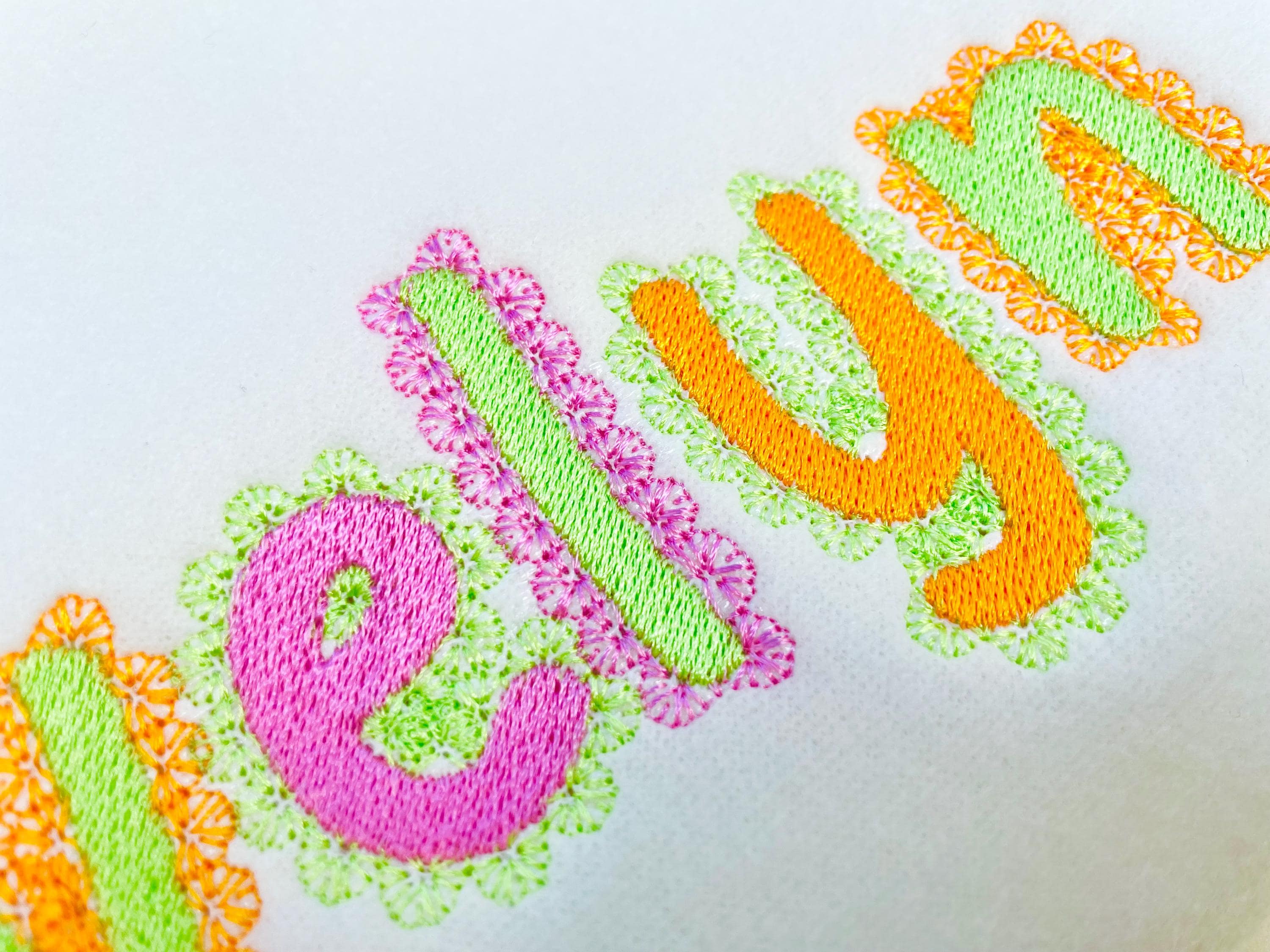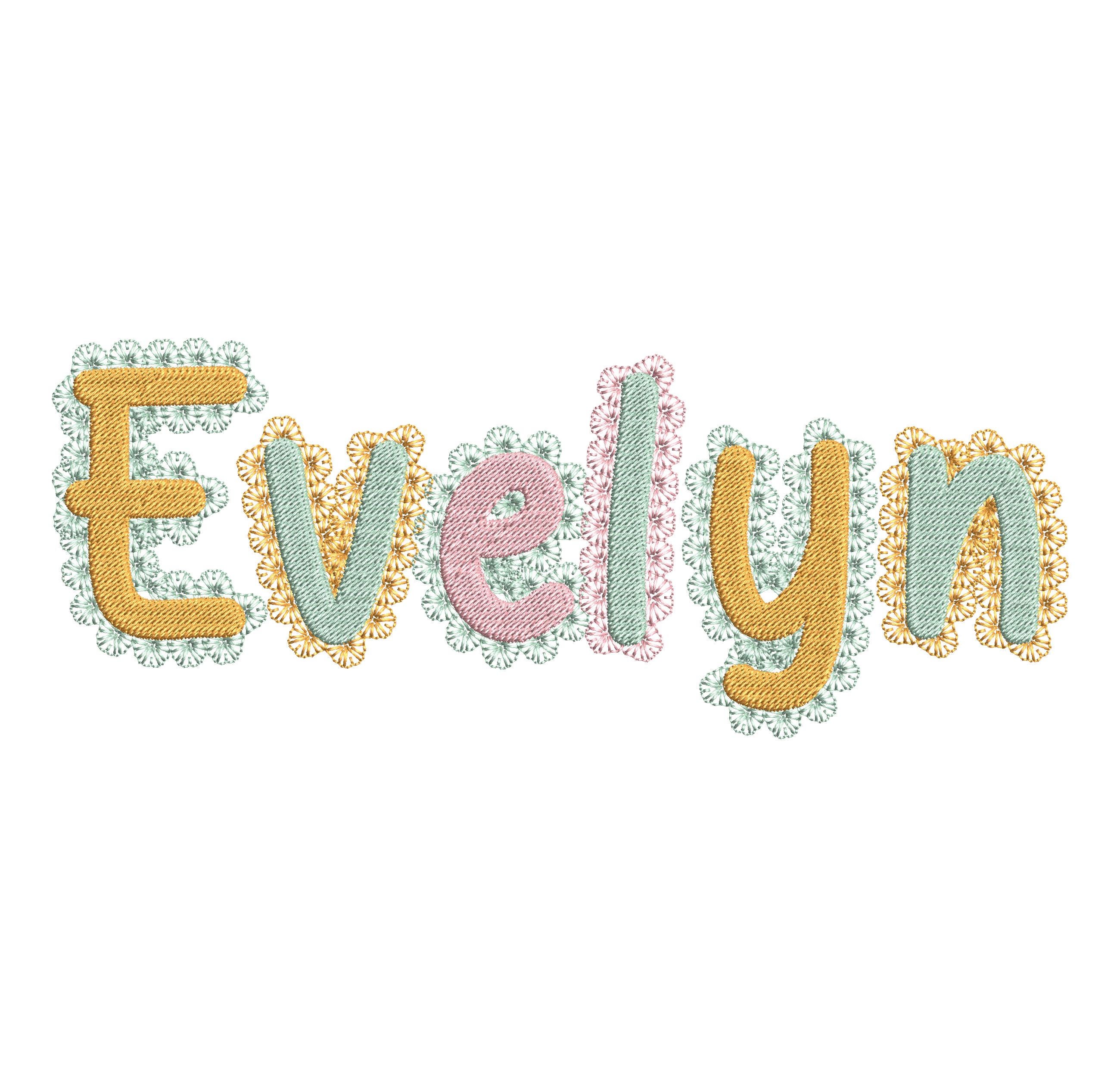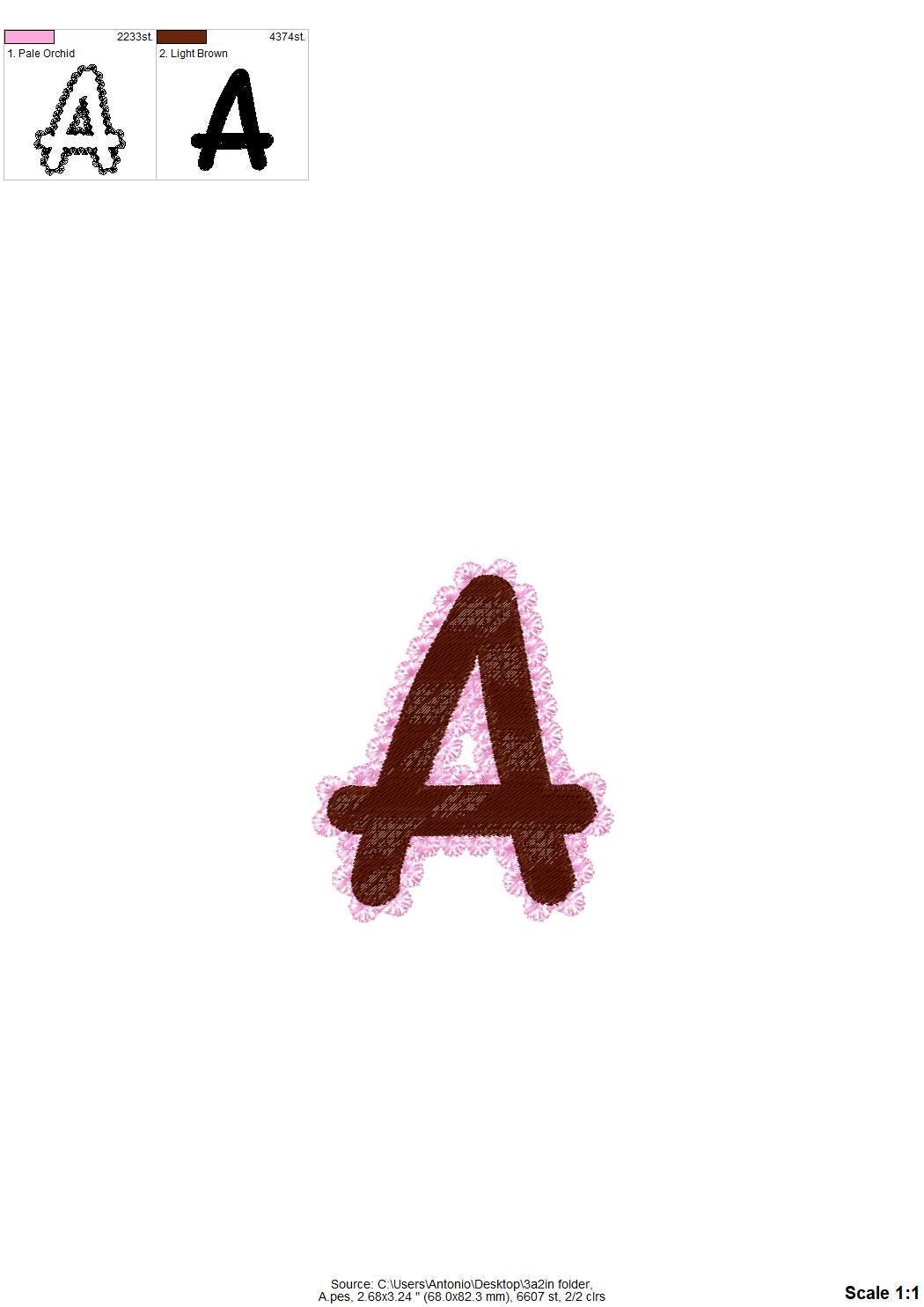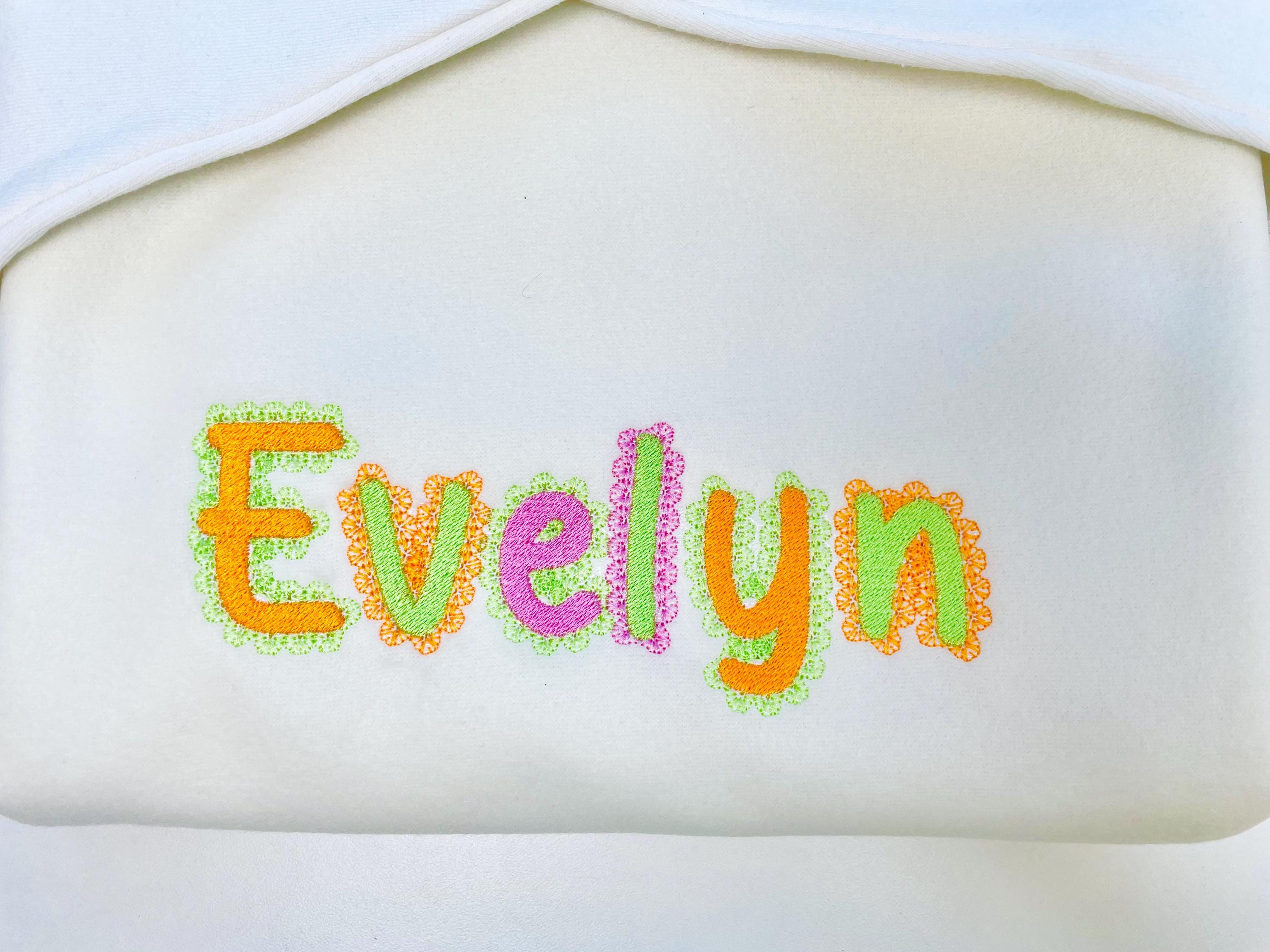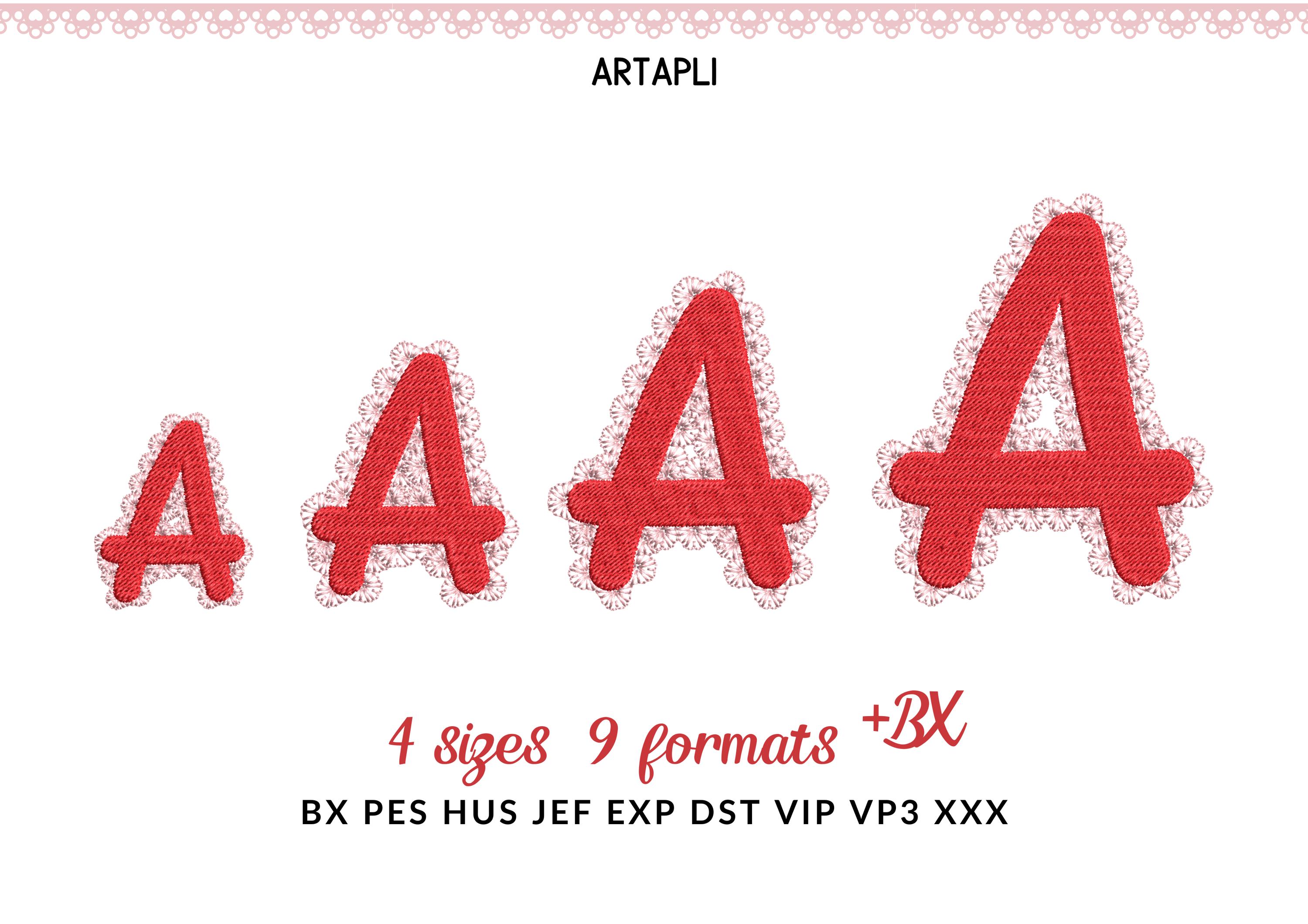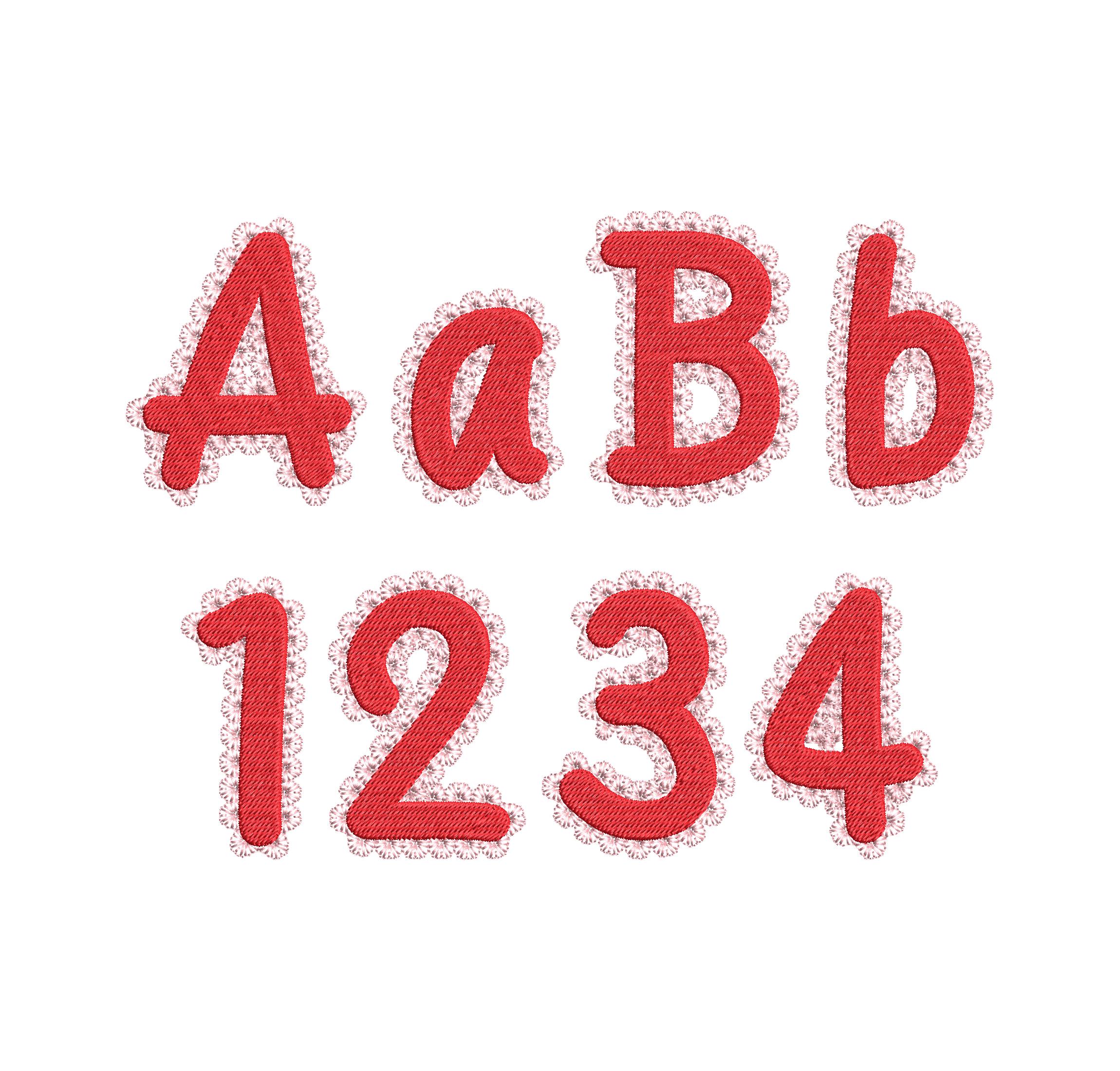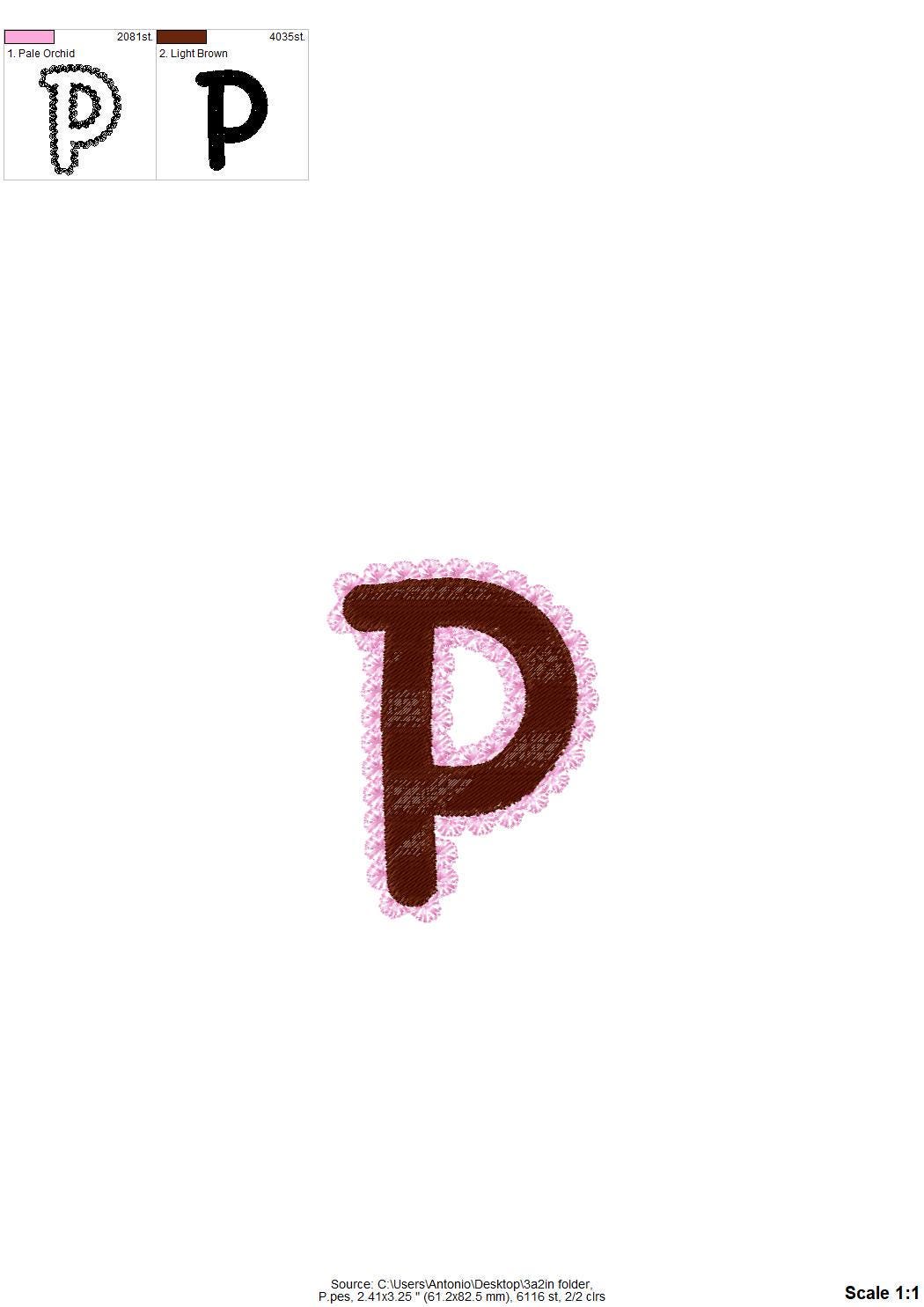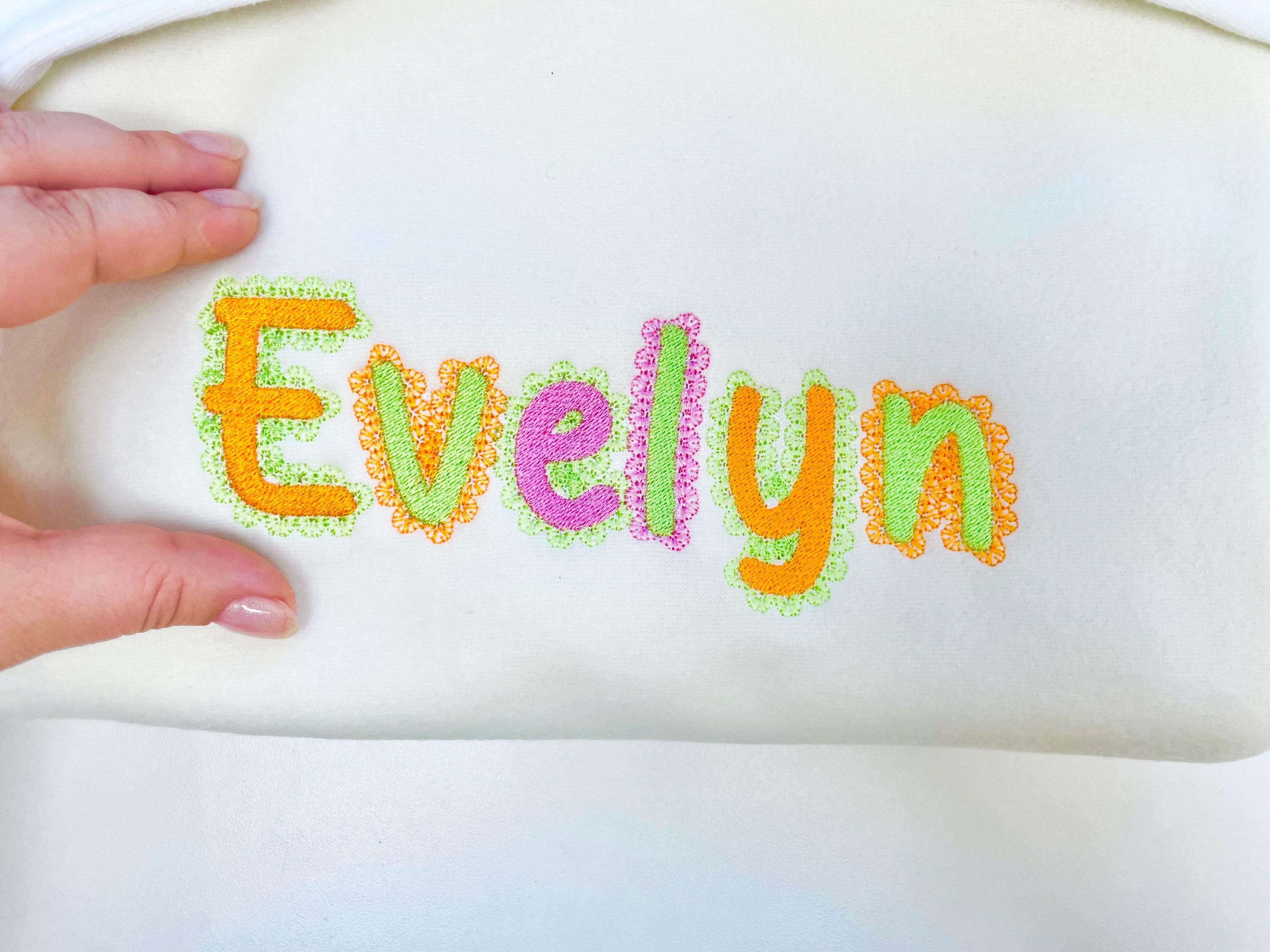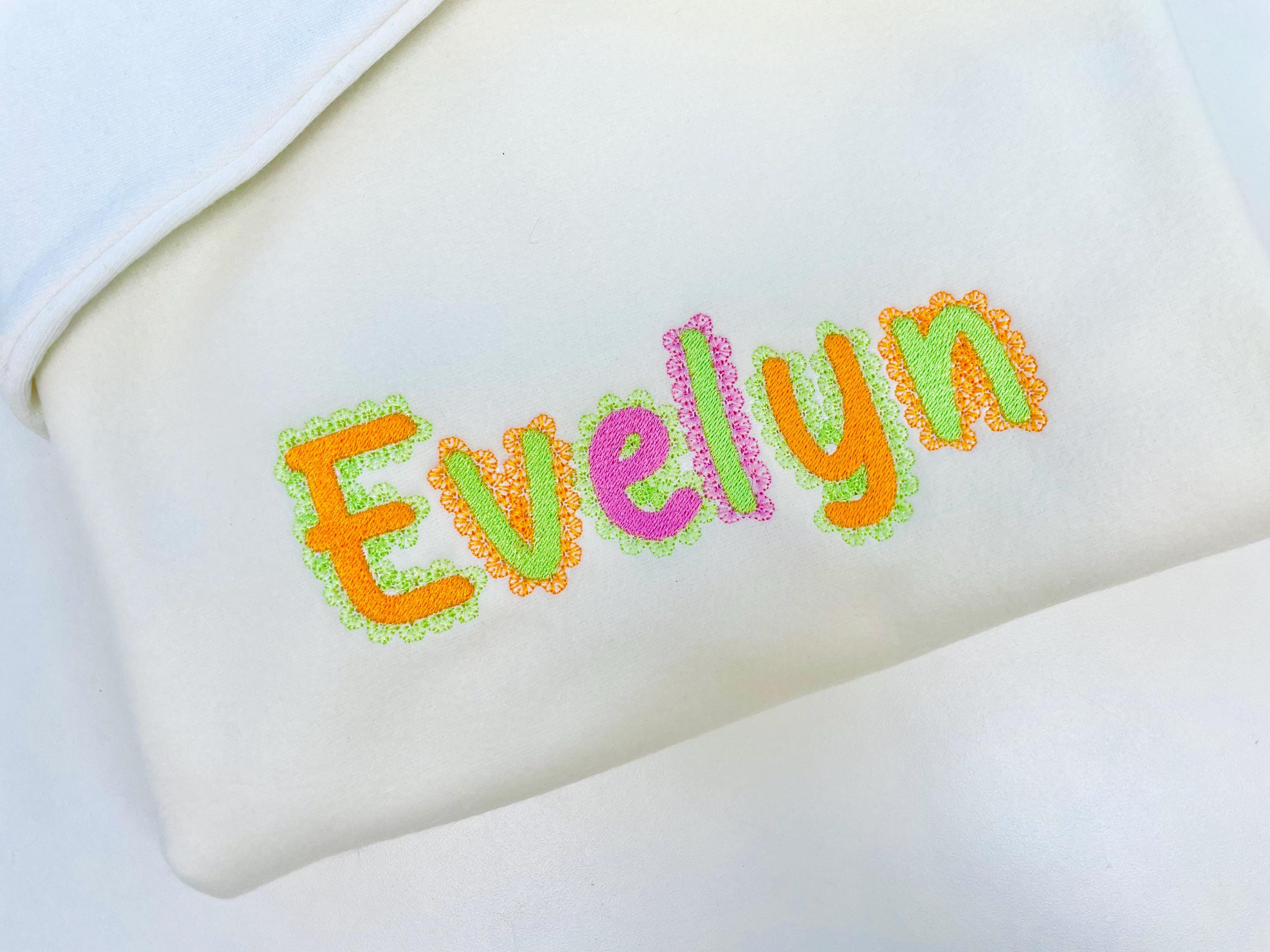
Lace Edge FONT Fill Stitch Spicy Alphabet Monogram cute baby girls fancy font machine embroidery designs sizes 1.5 up to 3.2 inches, and BX
Lace edge is part of the design. Stunning effect!